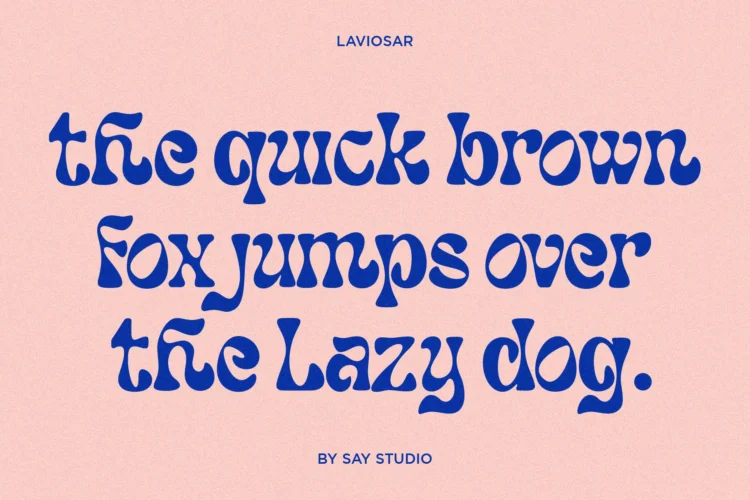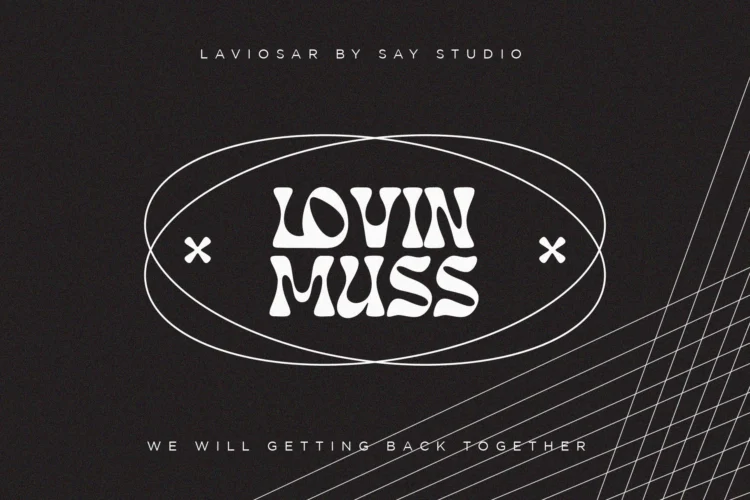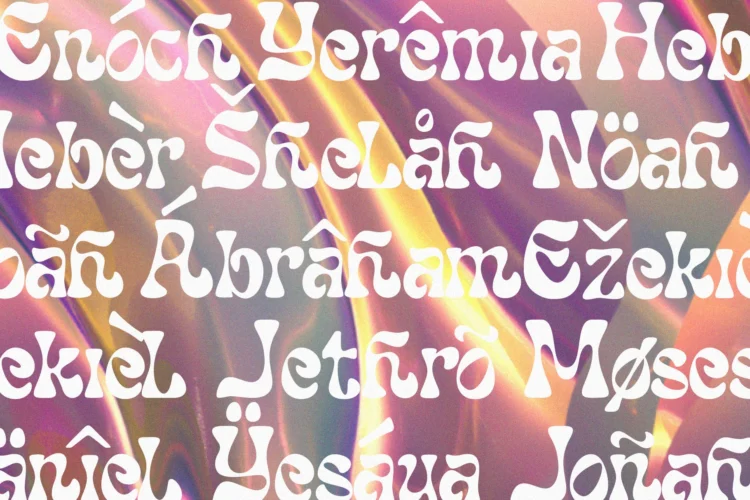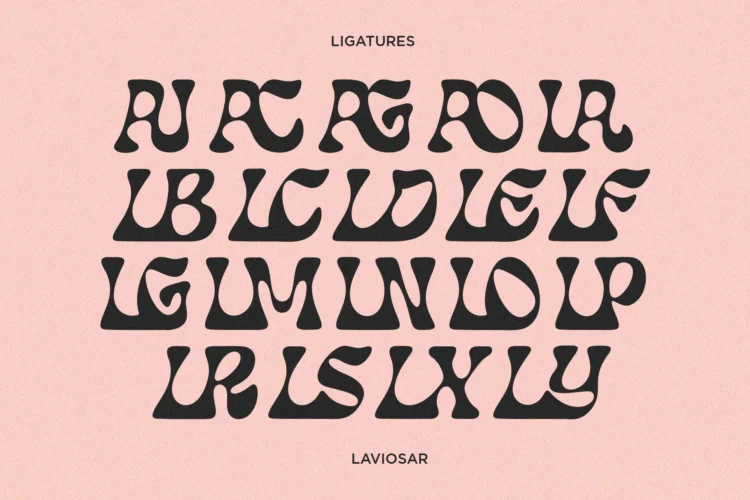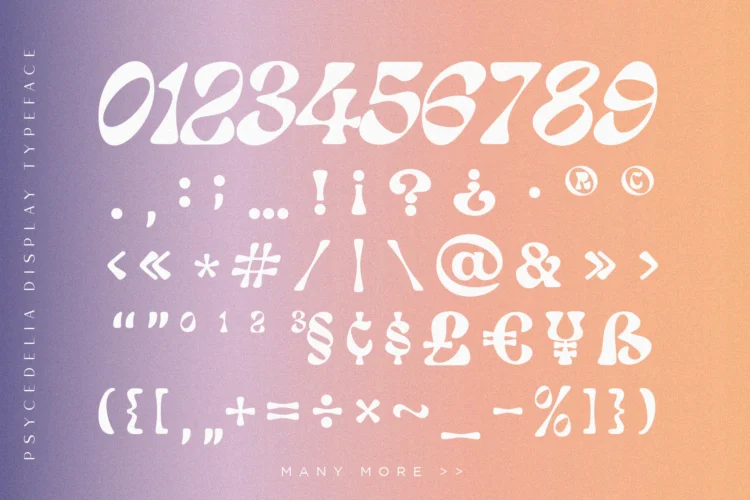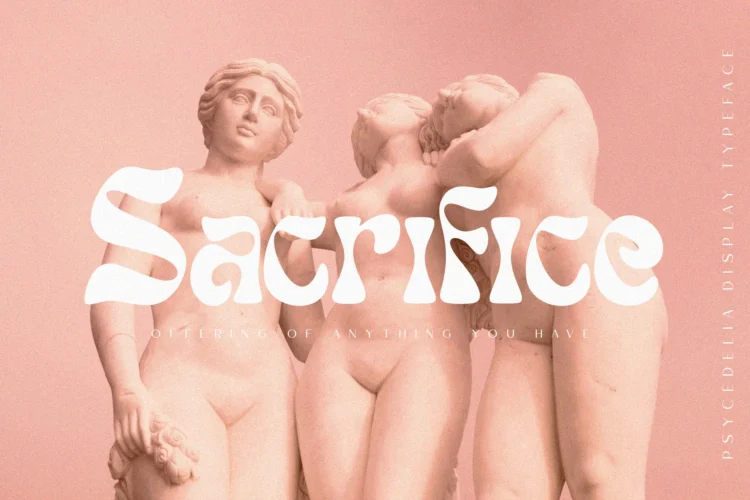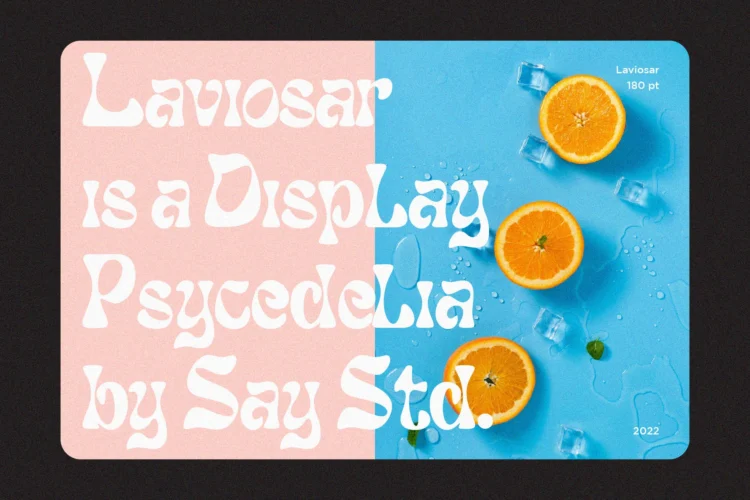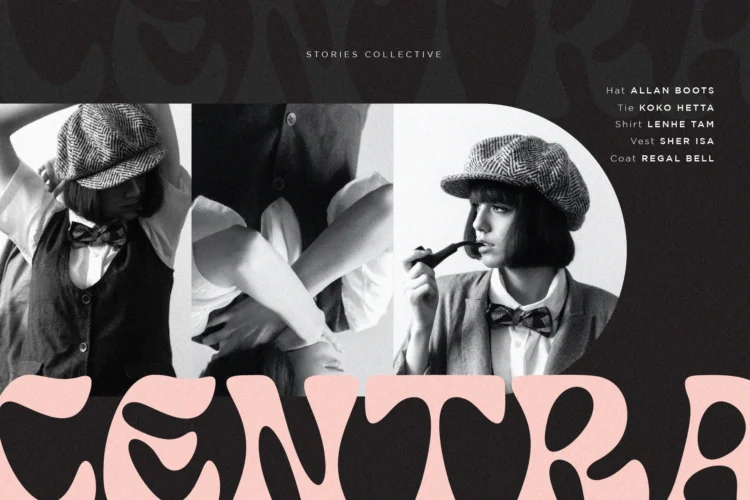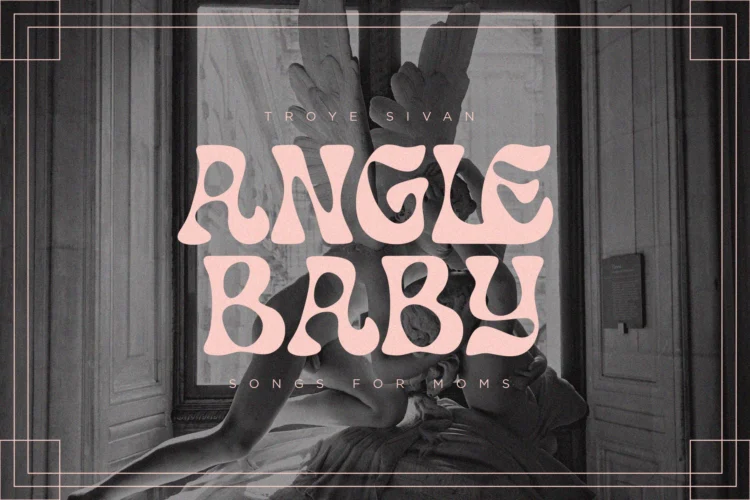
Laviosar – Display Typeface Font
Laviosar is a psychedelic inspired typeface. Unique tripped out lettering makes this font perfect for those groovy band poster, hippy logos and quotes. Laviosar mixes futurist letters with nostalgic curves to create stand out typography. Including lots of alternate letters! OTF, TTF, WOFF, WOFF2, SVG font files uppercase, alternates, numbers, punctuation Multilingual support If you want any Question, let me know Have a wonderful Day, Saystudio